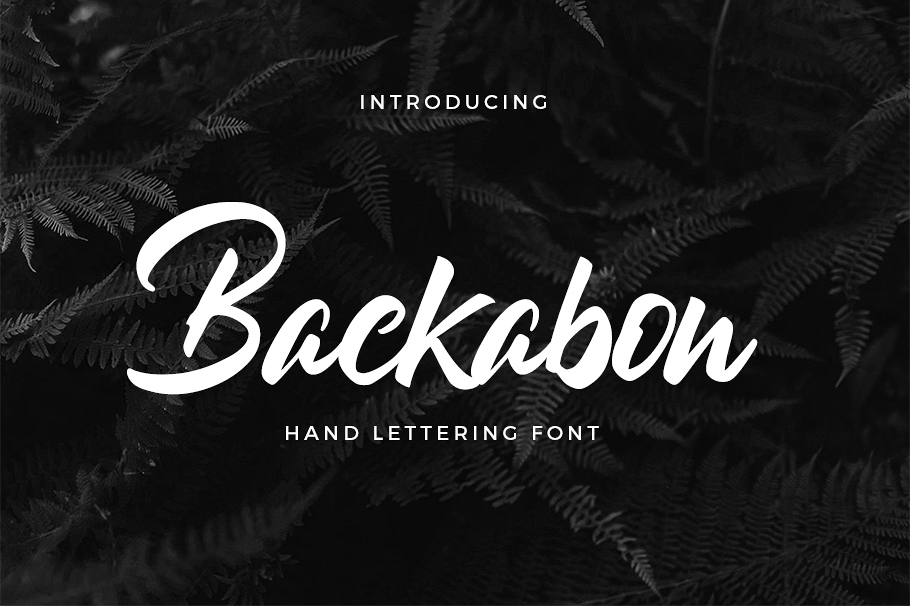
Backabon
Backabon is a bold connected script font . This font is great for your next creative project such as logos, printed quotes, invitations, cards, product packaging, headers, Logotype, Letterhead, Poster, Apparel Design, Label, and etc.